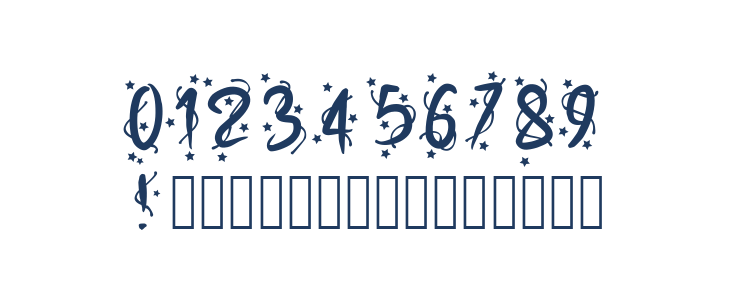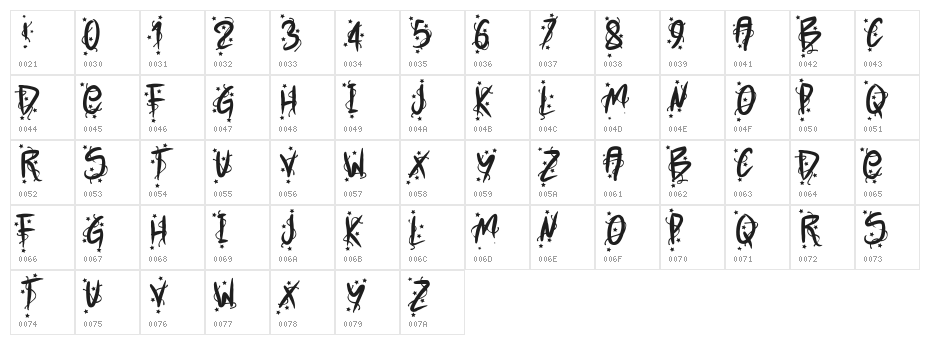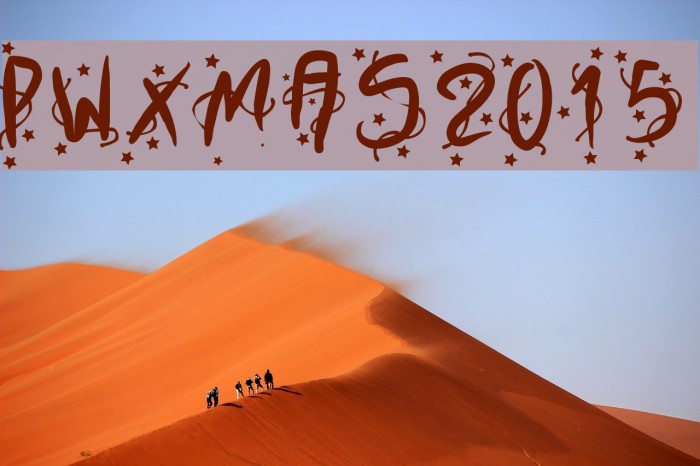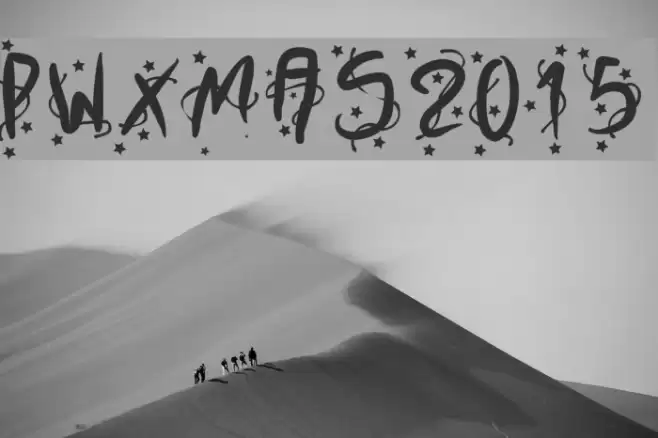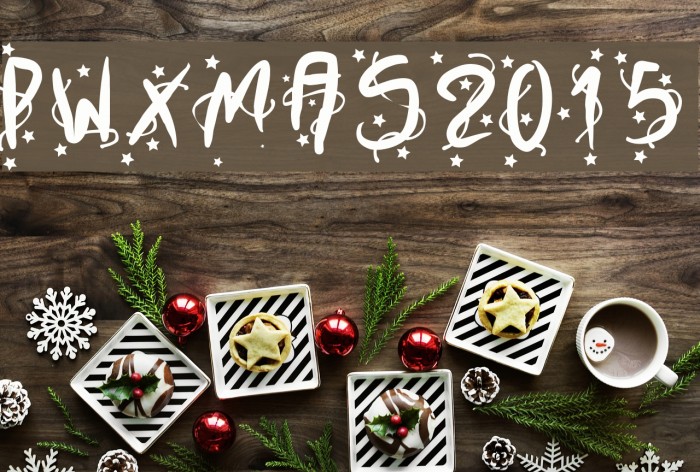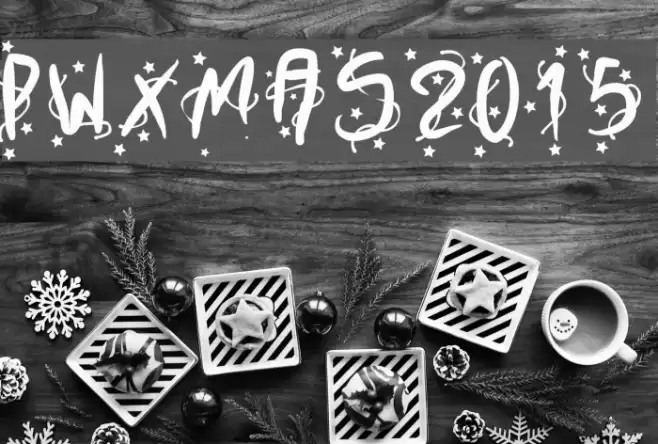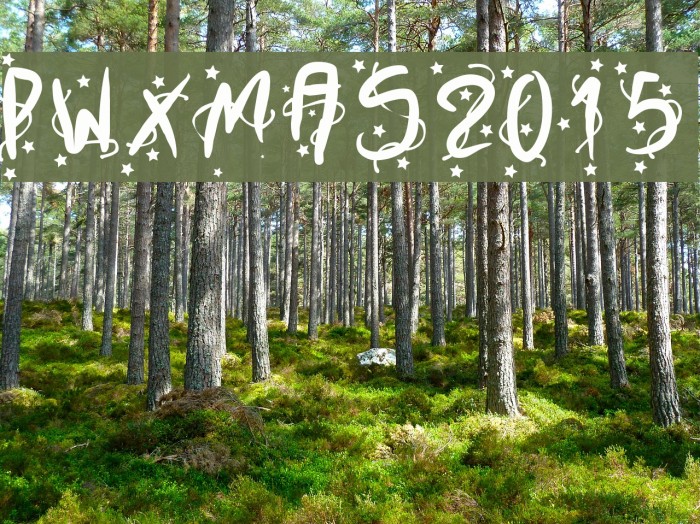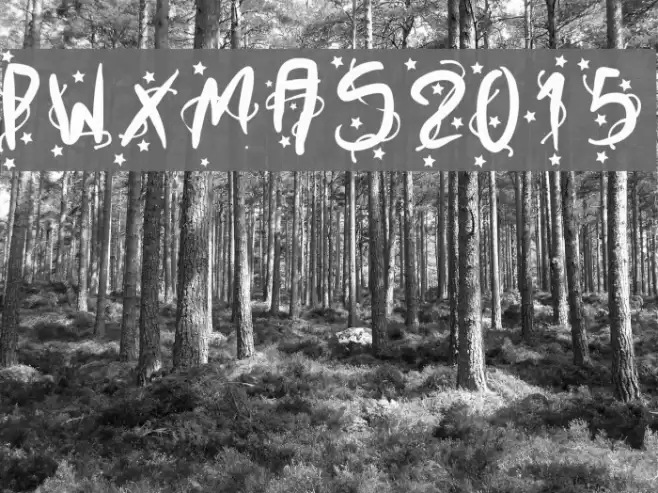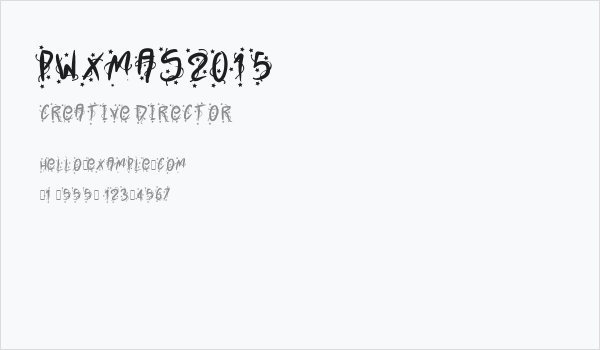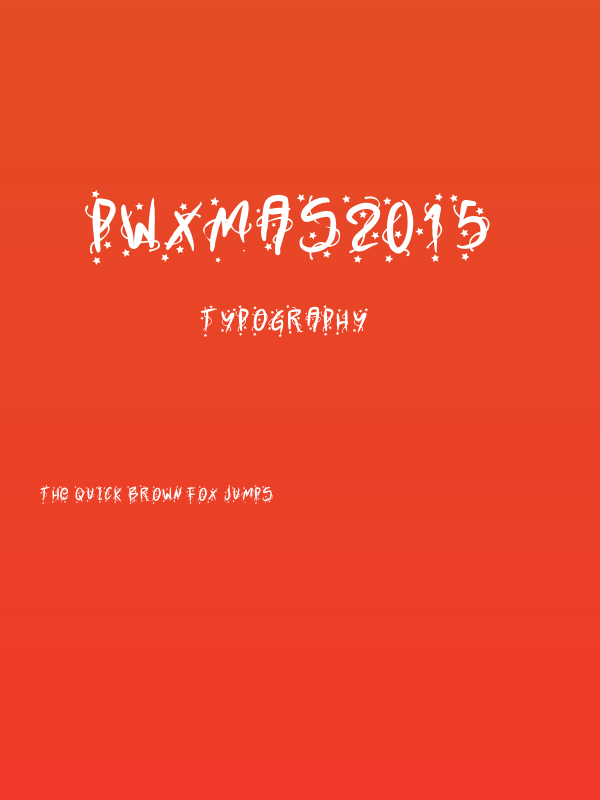
PWXmas2015 Font
PWXmas2015 Description
This font features a whimsical and festive design, incorporating playful star elements around each character. The letters have a hand-drawn, decorative style with a sense of movement and flair, making them ideal for holiday-themed projects. The strokes are bold and dynamic, with varying thickness that adds to the lively appearance. The stars add a touch of magic and celebration, perfect for capturing the spirit of festivities. The characters are well-defined, with a unique blend of curves and angles that create a sense of joy and excitement.
Proposed ProjectsIdeal for holiday cards, festive banners, party invitations, and seasonal marketing materials.